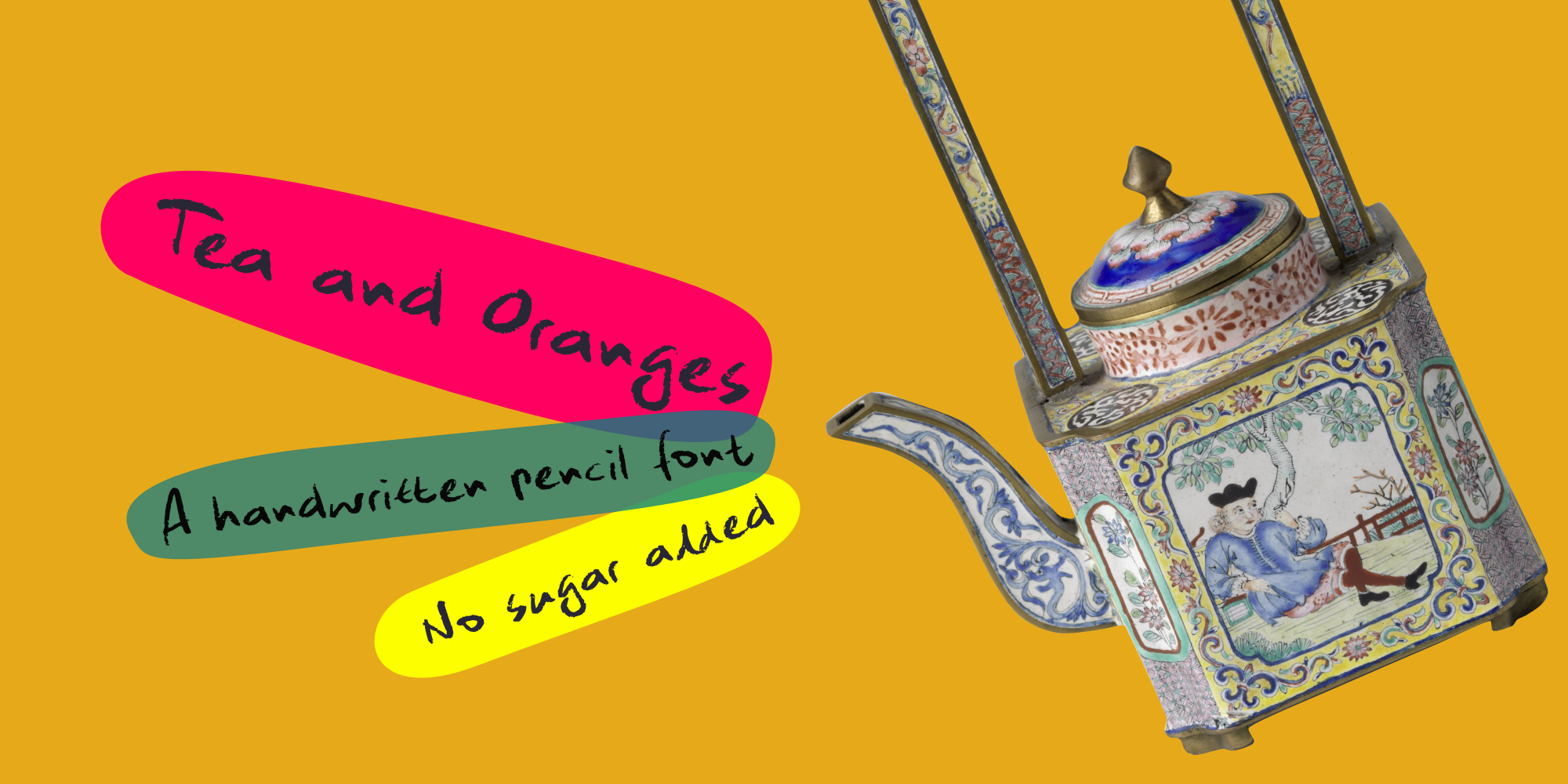
Tea & Oranges By Unique July 12, 2025 A hand made ‘pencil’ font, named after a line from Leonard Cohen’s song Suzanne. One of my brother Rizja’s favourite songs. He pushed the escape button last week.